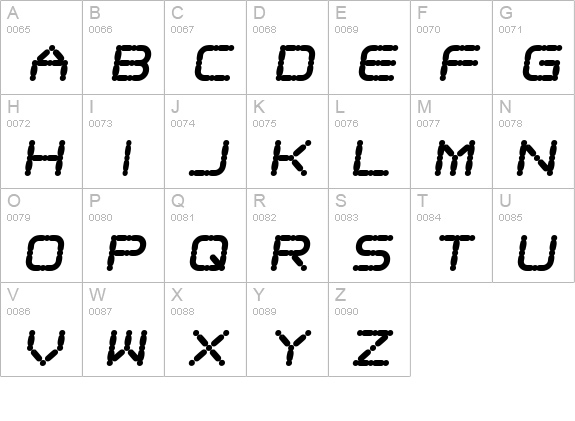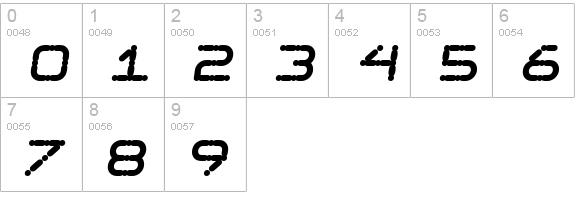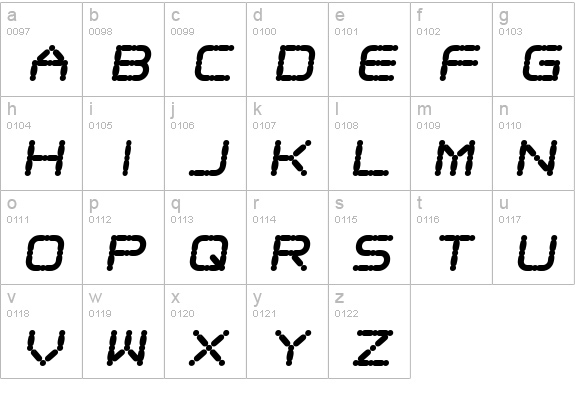
Ego trip Fat Skew Font Details
Ego trip Fat Skew font is a bold and eye-catching typeface that exudes confidence and modernity. Its unique skew design adds a dynamic and edgy touch to any project, making it perfect for headlines, posters, and branding materials. The thick strokes and exaggerated angles of this font command attention and convey a sense of strength and individuality. What sets Ego trip Fat Skew font apart is its versatility - it can be used for both playful and professional applications, making it a valuable addition to any designer's toolkit. Whether you're looking to make a statement or add a touch of flair to your designs, this font is sure to deliver. The best part? Ego trip Fat Skew font is freely available to download at FontsMarket.com, allowing you to access this stylish and impactful typeface at no cost. Don't miss out on the opportunity to enhance your projects with the bold and expressive Ego trip Fat Skew font today!